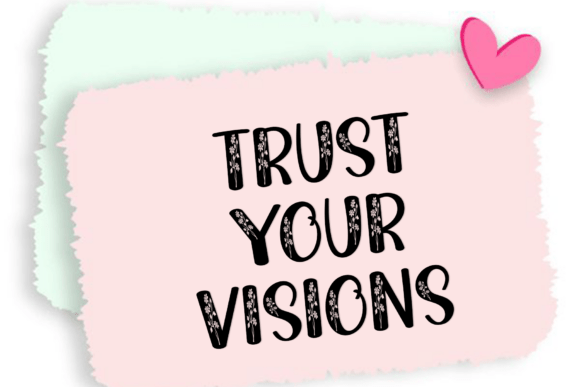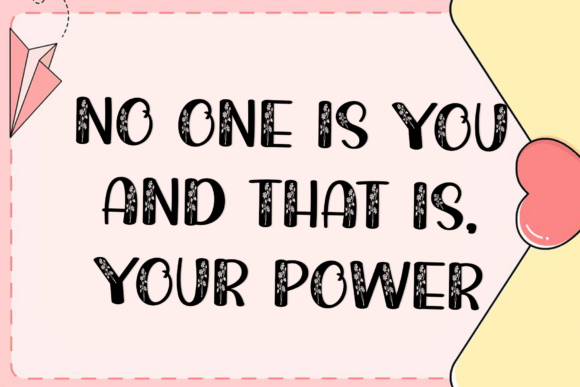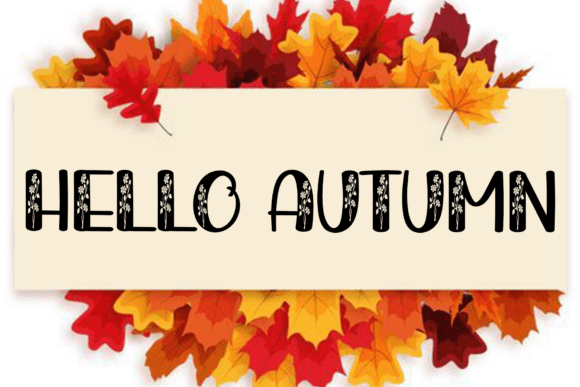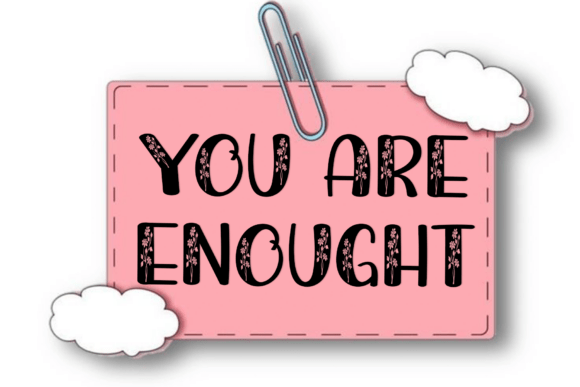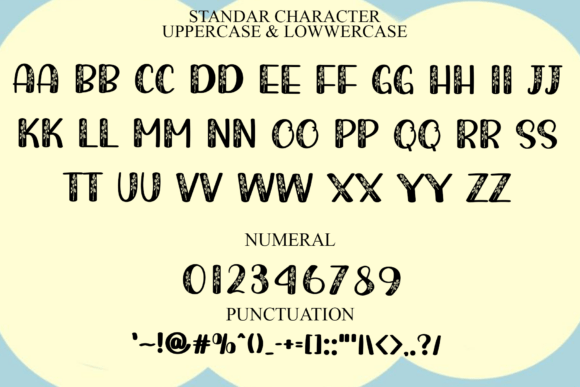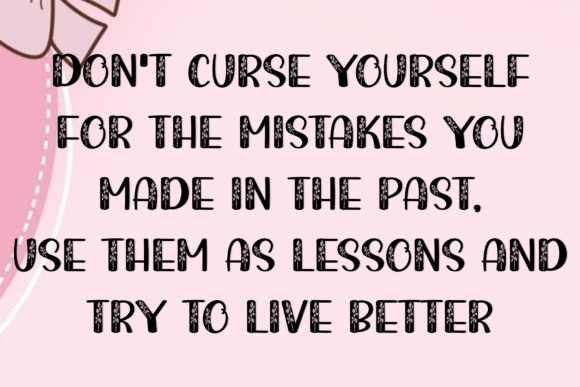
Introduction to Mona Flower Font
As a designer, there’s nothing quite like the thrill of seeing a project come to life. Whether it’s a wedding invitation, a fashion label, or a branding campaign, the right font can make all the difference. And when that font is as stunning as the Mona Flower Font, you know you’ve struck gold.
I still remember the first time I laid eyes on the Mona Flower Font. Its elegant, bold aesthetic had me hooked from the start. The intricate floral embellishments inside each character added a level of sophistication and whimsy that was impossible to ignore. As a design resource, the Mona Flower Font is a game-changer, offering a high-quality, customizable solution for any creative project.
With its transparent background and stunning details, the Mona Flower Font is perfect for designers looking to add a touch of elegance and sophistication to their work. And the best part? It’s available for free download, making it an invaluable resource for designers of all levels.
- Unique, intricate design with delicate details and subtle nuances, perfect for adding a touch of elegance to any creative project
Honest Review: Mona Flower Font
As a designer, I’m always on the lookout for high-quality design resources to elevate my creative projects. Recently, I came across the Mona Flower Font, and I’m excited to share my honest review with you.
- ✨ The font is incredibly versatile, making it perfect for a variety of design projects.
- ✨ The transparent background feature is a game-changer, allowing for seamless layering and composition.
- ⚠️ The font may not be suitable for professional or high-end projects, as it’s a free resource.
- ⚠️ Some users may experience issues with font rendering, depending on the device or software used.
Overall, I’m impressed with the Mona Flower Font. While it may have some limitations, its high quality and versatility make it an excellent addition to any designer’s toolkit. Whether you’re working on a personal project or a client assignment, this font is sure to deliver.
Tips for Getting the Most Out of Mona Flower Font
To get the most out of the Mona Flower Font, experiment with different font sizes, colors, and combinations. Use it in conjunction with other design elements to create visually appealing and effective designs.
The Mona Flower Font is suitable for a wide range of creative projects, including wedding invitations, baby shower invitations, and other special occasion designs. It’s also great for creating social media graphics, blog posts, and other online content.